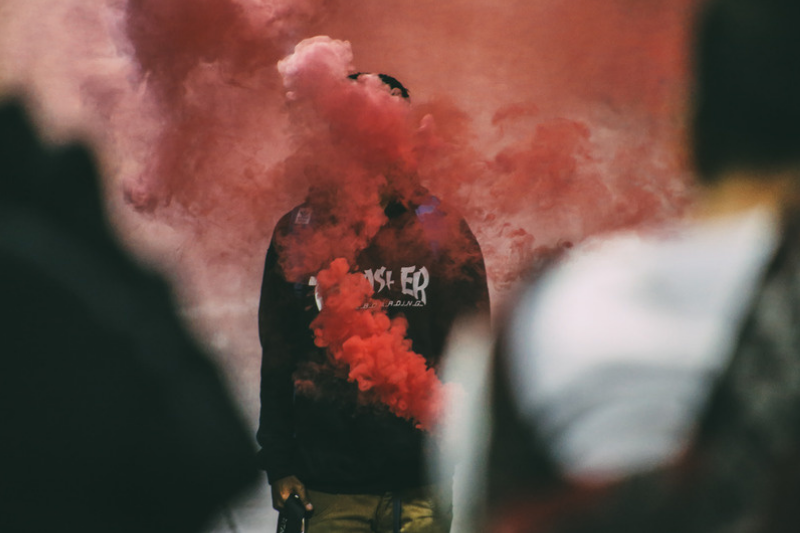
Thrasher Font Generator
About the Thrasher Font Generator
Thrasher is a renowned skateboarding magazine founded in 1981. Over the years, it has become a cultural icon, playing a significant role in the skateboarding community. Thrasher magazine features skateboarding articles, interviews, photographs, and videos, making it a worldwide go-to source for skateboarding enthusiasts. The magazine's logo and distinct font have become recognizable and synonymous with skateboarding culture.
About Thrasher Font
The Thrasher magazine logo font is known as " Banco.’. This typeface is a traditional black letter font inspired by medieval calligraphy. It features intricate and ornate letterforms with sharp edges and bold strokes, giving it a timeless and classic appearance.
The Banco font has a sense of boldness and rebellion, which aligns perfectly with the skateboarding culture's spirit of individuality and nonconformity. The letters' elaborate design contributes to the magazine's strong visual identity, making it instantly recognizable among skateboarders and fans.
Thrasher Font Generator
The Thrasher Font Generator is an online tool that allows users to create custom text in the style of the iconic Thrasher magazine logo. This font generator has gained popularity among skateboarders, fans, and designers who want to incorporate the distinctive Thrasher font into their graphics, apparel, and social media posts.
Using the Thrasher Font Generator is a simple and engaging process. Users input their desired text, and with a click of a button, their words will transform into the bold and rebellious Old English font reminiscent of the Thrasher magazine logo. The generator may also offer options to adjust the font size, apply color variations, or add additional effects to the text.
Thrasher magazine's logo and font have become integral to skateboarding culture, representing the spirit of rebellion, individuality, and creativity. The Thrasher Font Generator extends this visual experience, allowing skateboarders and fans to incorporate the iconic Old English font into their creative projects, further solidifying the magazine's impact on the skateboarding community.